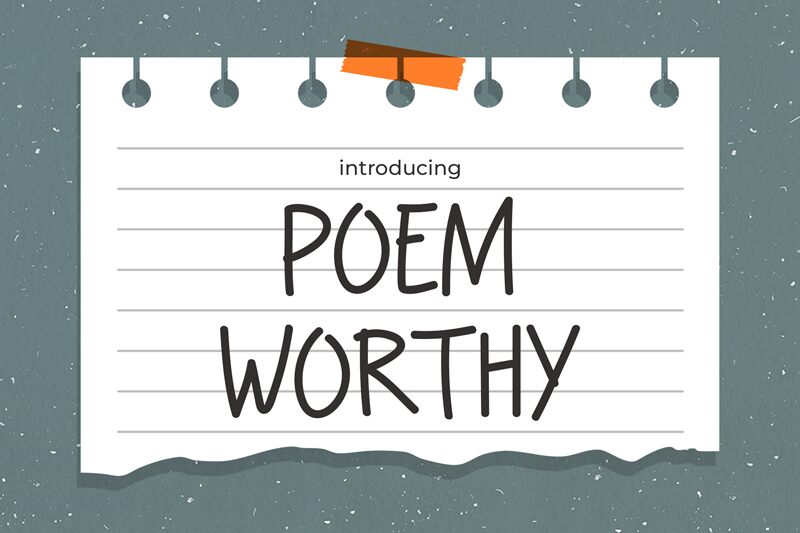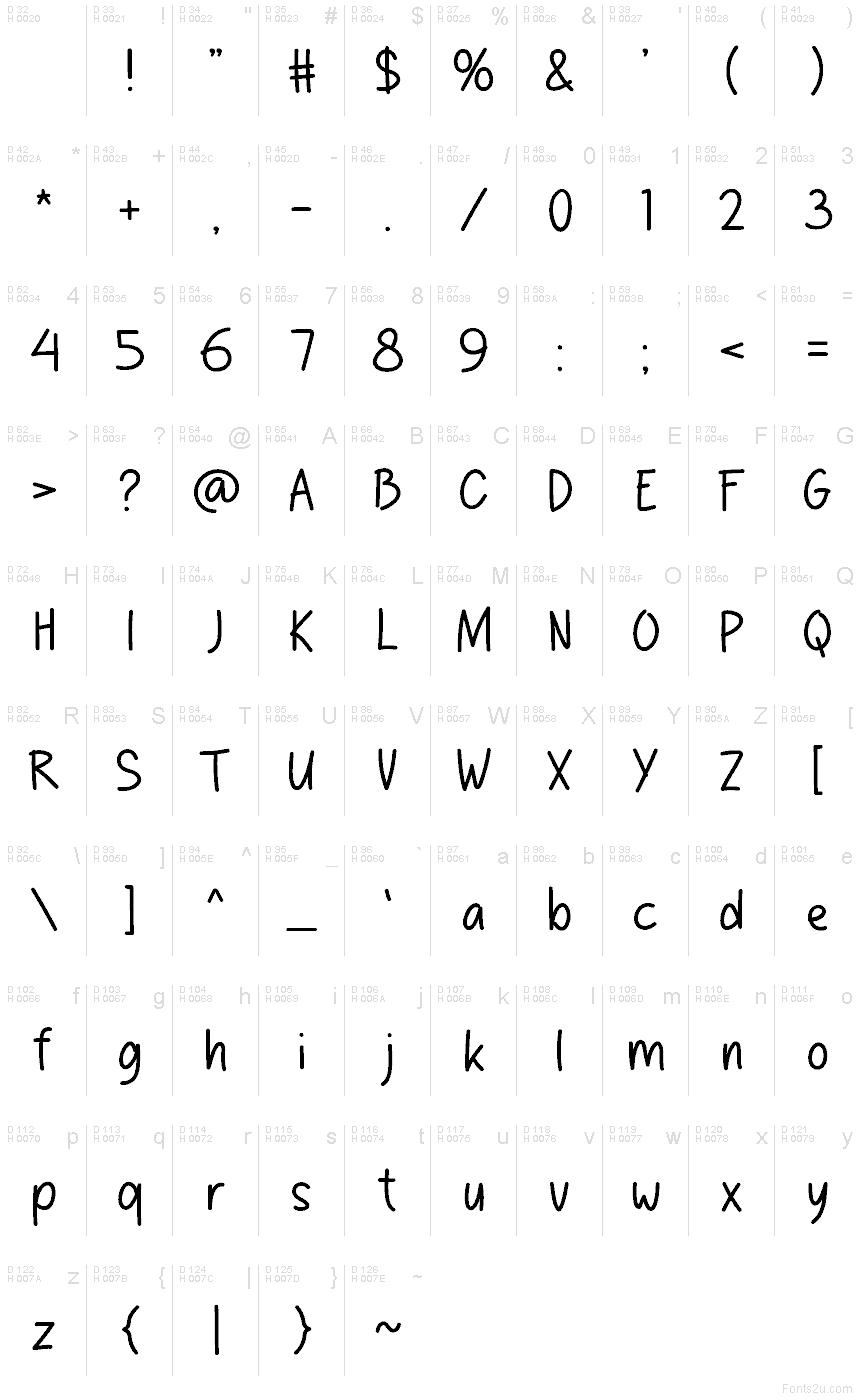
POEM-WORTHY
Poem-worthy font is a free handwritten font by Pinisiart that draws inspiration from the appearance of human handwriting. With its casual style, the font sets an approachable and friendly mood to any project it is used in. Through its expressive character, it fits perfectly any design that has an artistic touch.
Use it for journals, notebooks, communication notes, printed stationery designs, diary logos on diaries and planners covers. Poem-worthy can also be added to posters for cafes and restaurants as well as their menus. Get creative and use it in other product branding ideas like package designs!